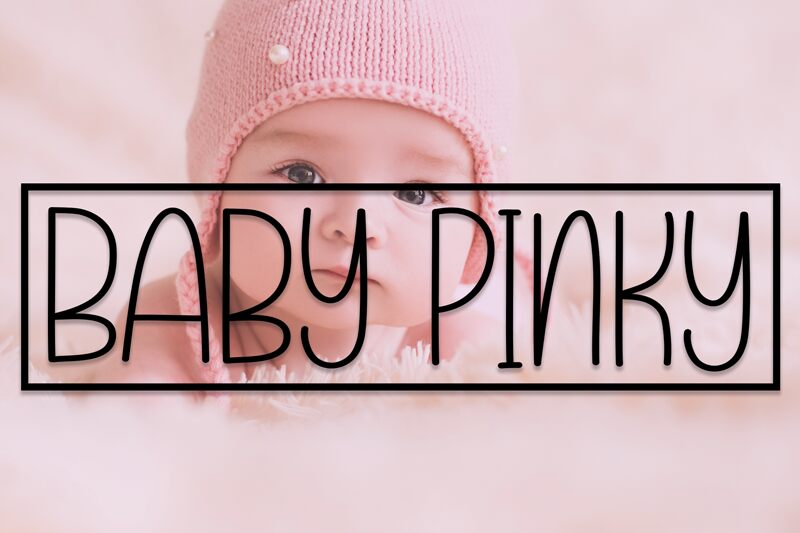
Baby Pinky
Baby Pinky, crafted by the imaginative Scratchones, offers a whimsical touch with its handwritten aesthetic that radiates warmth and playfulness. Its semi-light weight gives it an airy feel, while the extra-condensed width ensures that each character delivers a delicate yet pronounced impact. This font marries casual charm with a tidy structure, making it an excellent choice for projects seeking to convey intimacy and personality without sacrificing readability.
From personalized invitations to creative branding, Baby Pinky's style is versatile enough to add a handcrafted vibe to various design endeavors. Whether you're looking to capture the essence of innocence in children's literature or aiming for an informal yet chic look in logo design, this font stands out as both approachable and stylish. Embrace the unique flair of Baby Pinky for your next creative project and let its distinctive character make your message unforgettable.